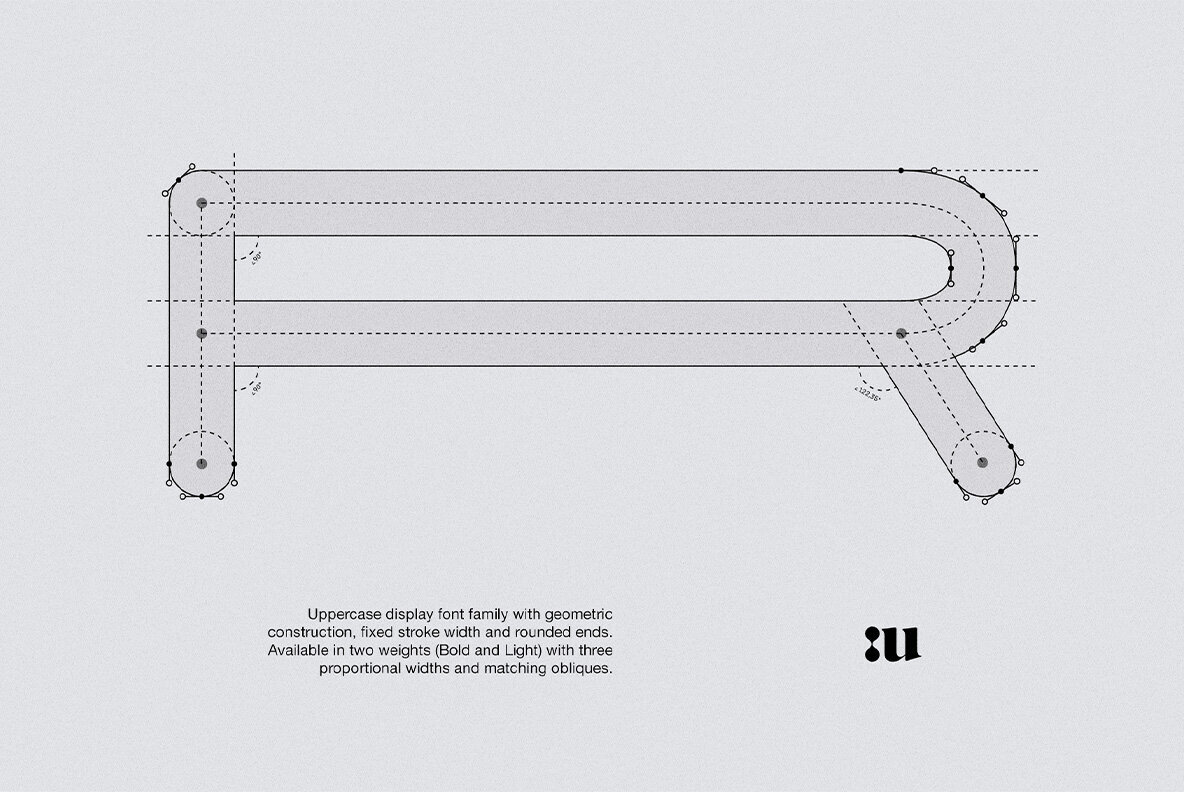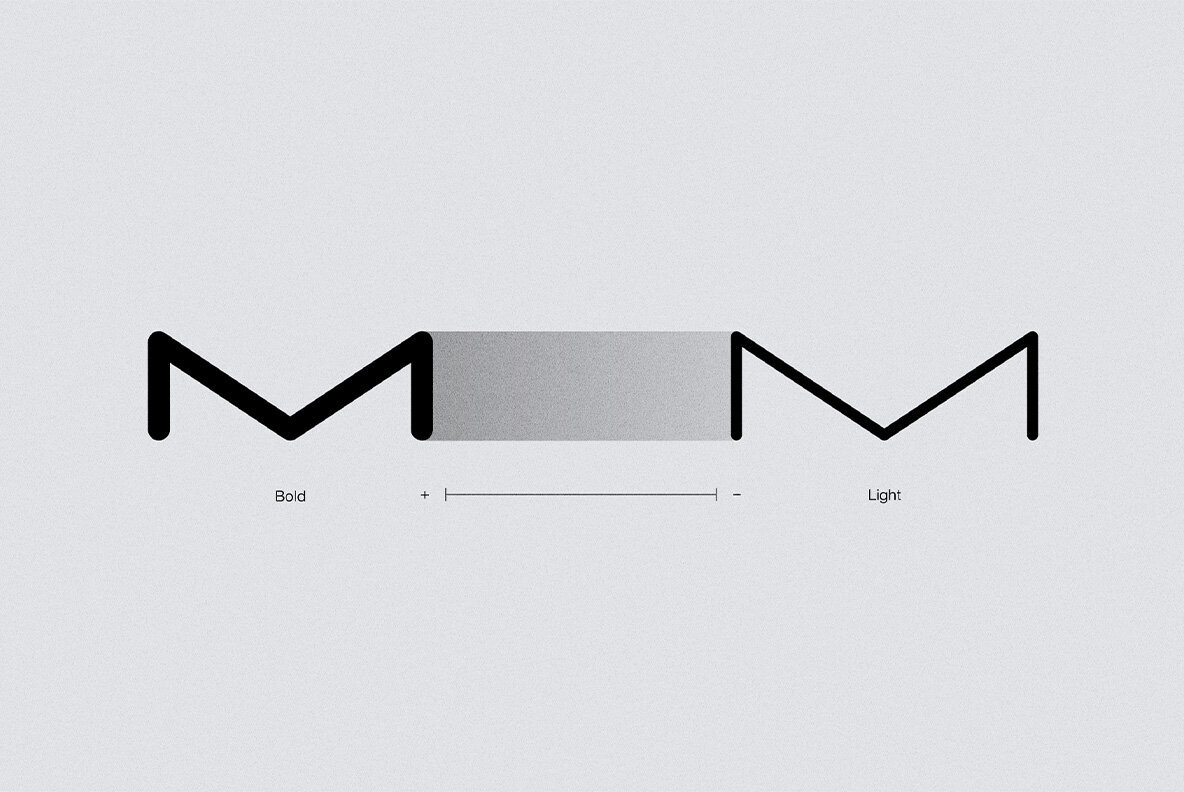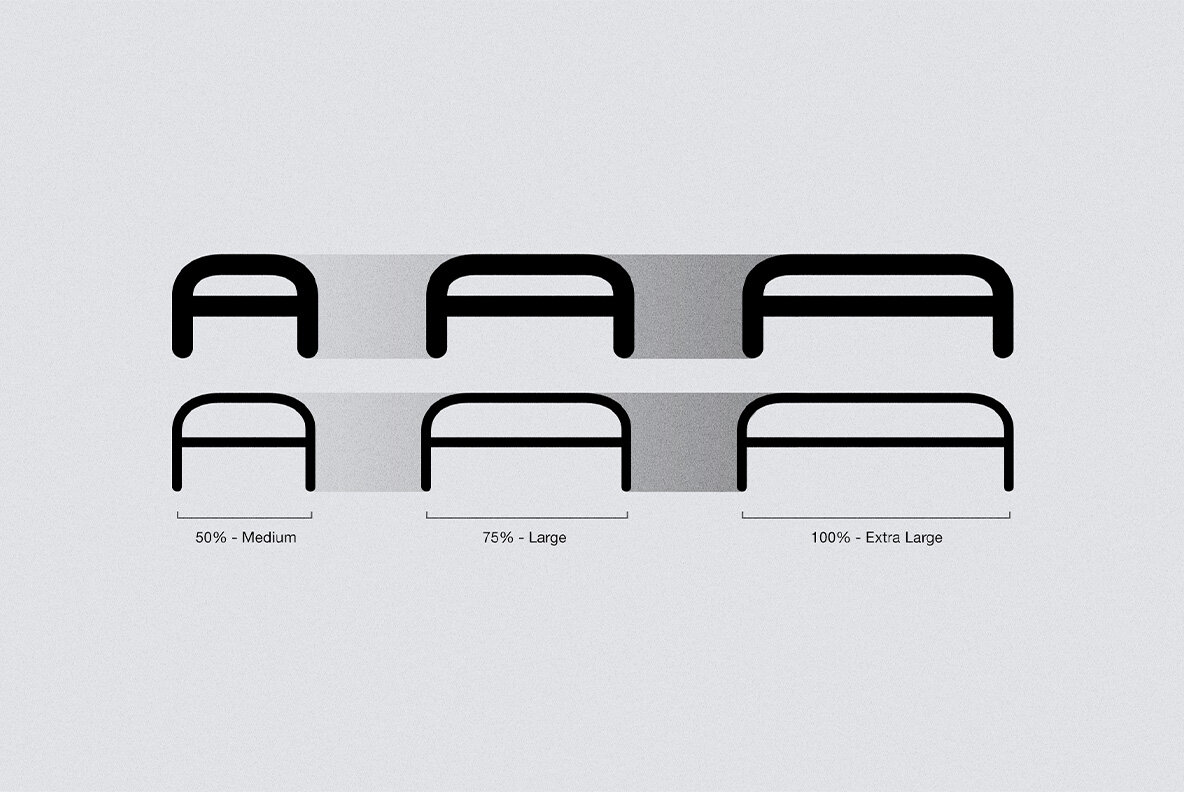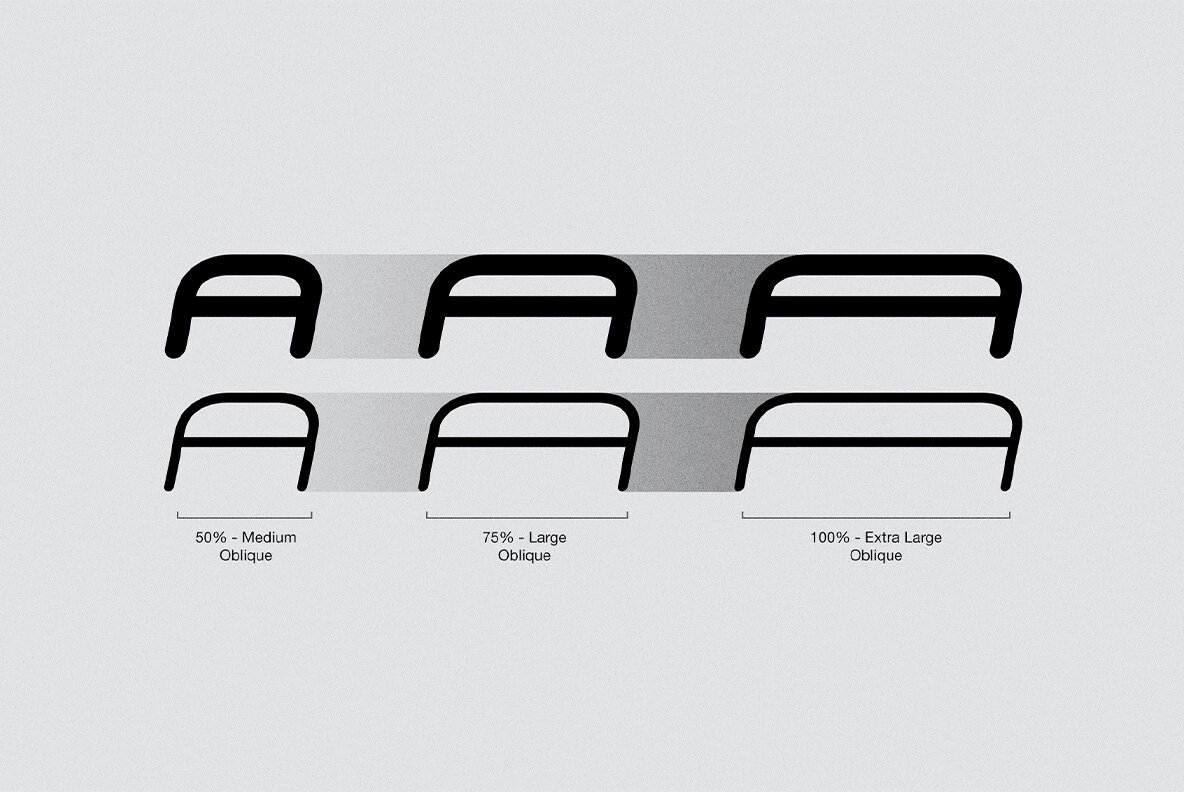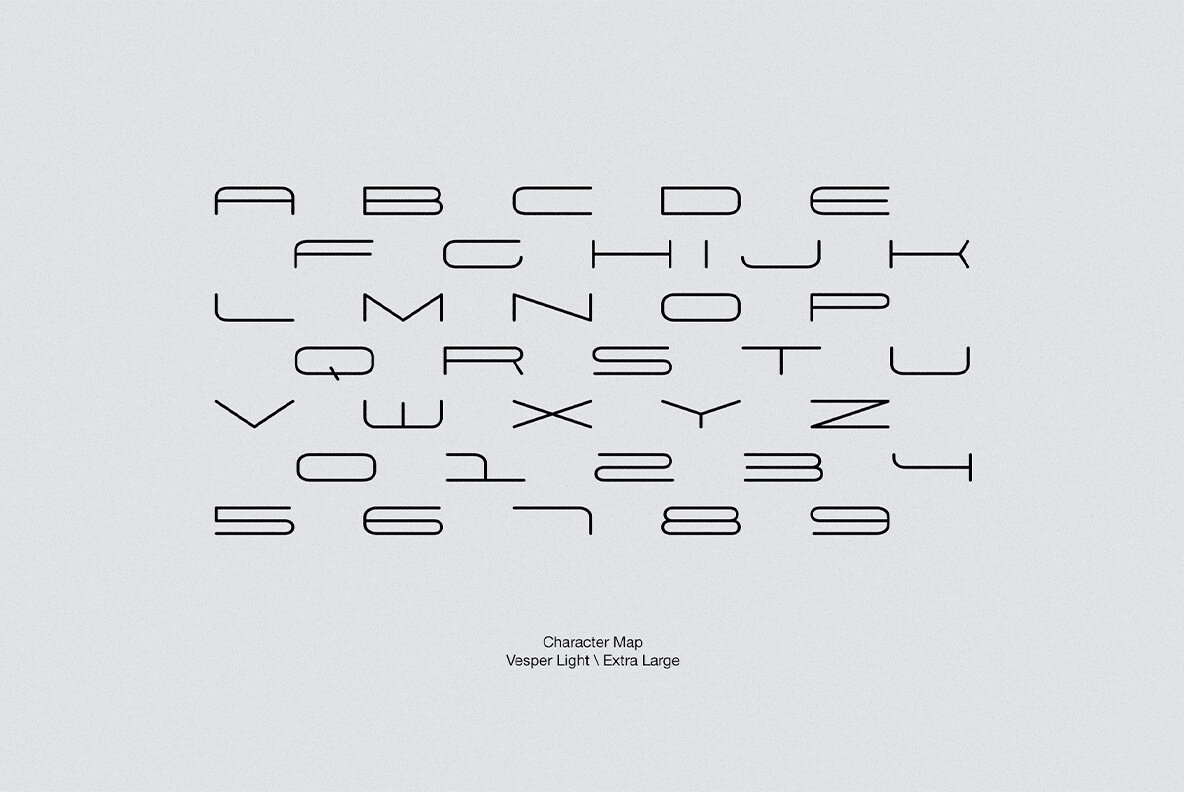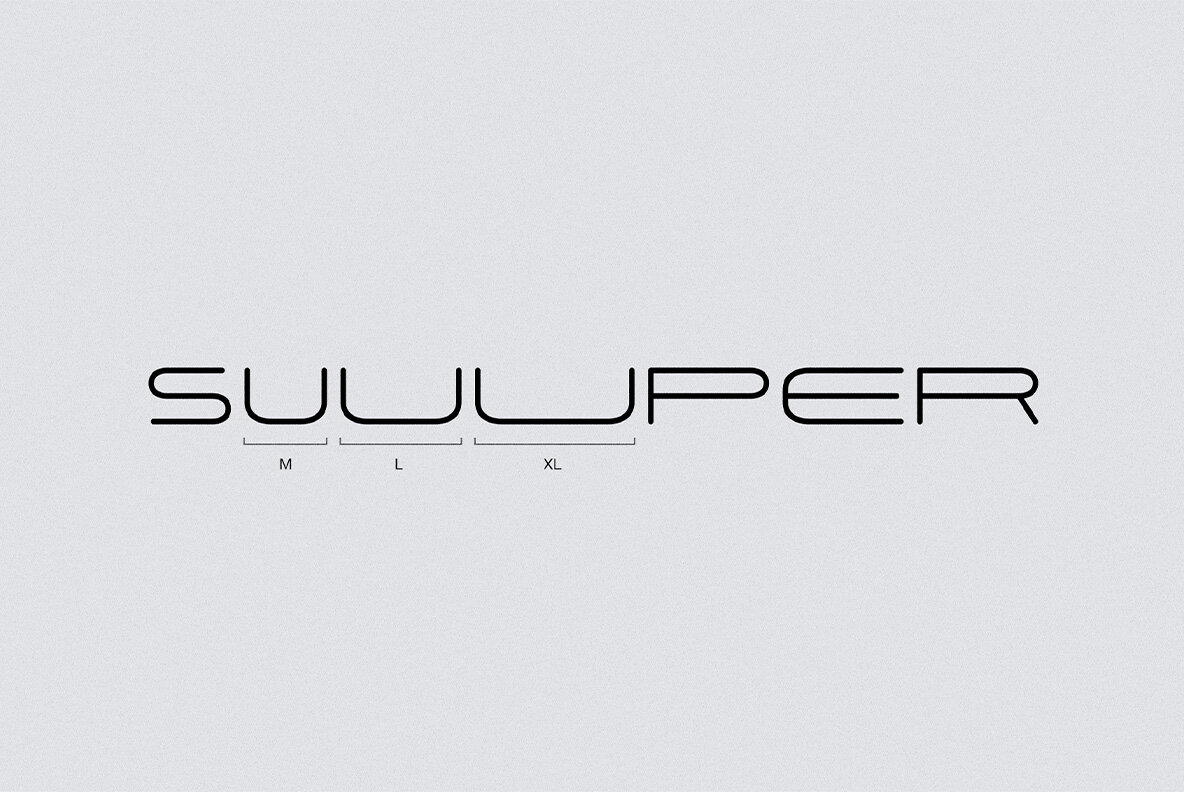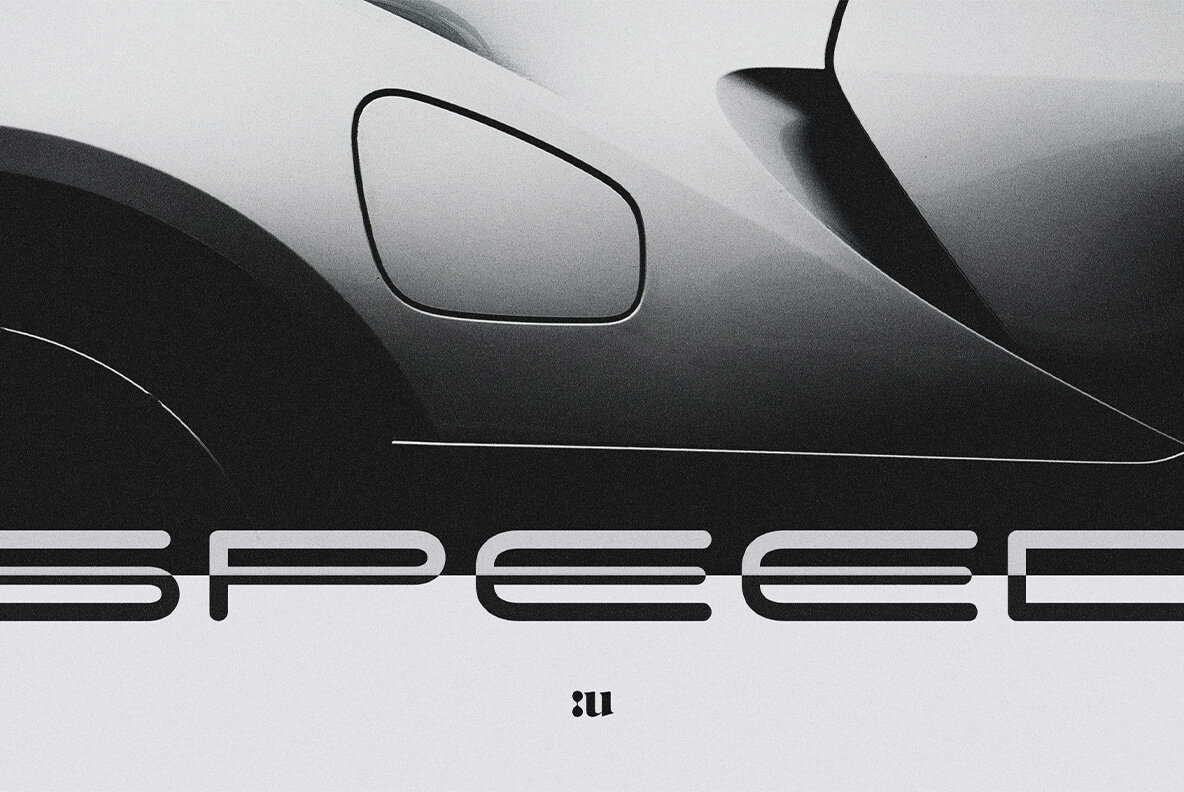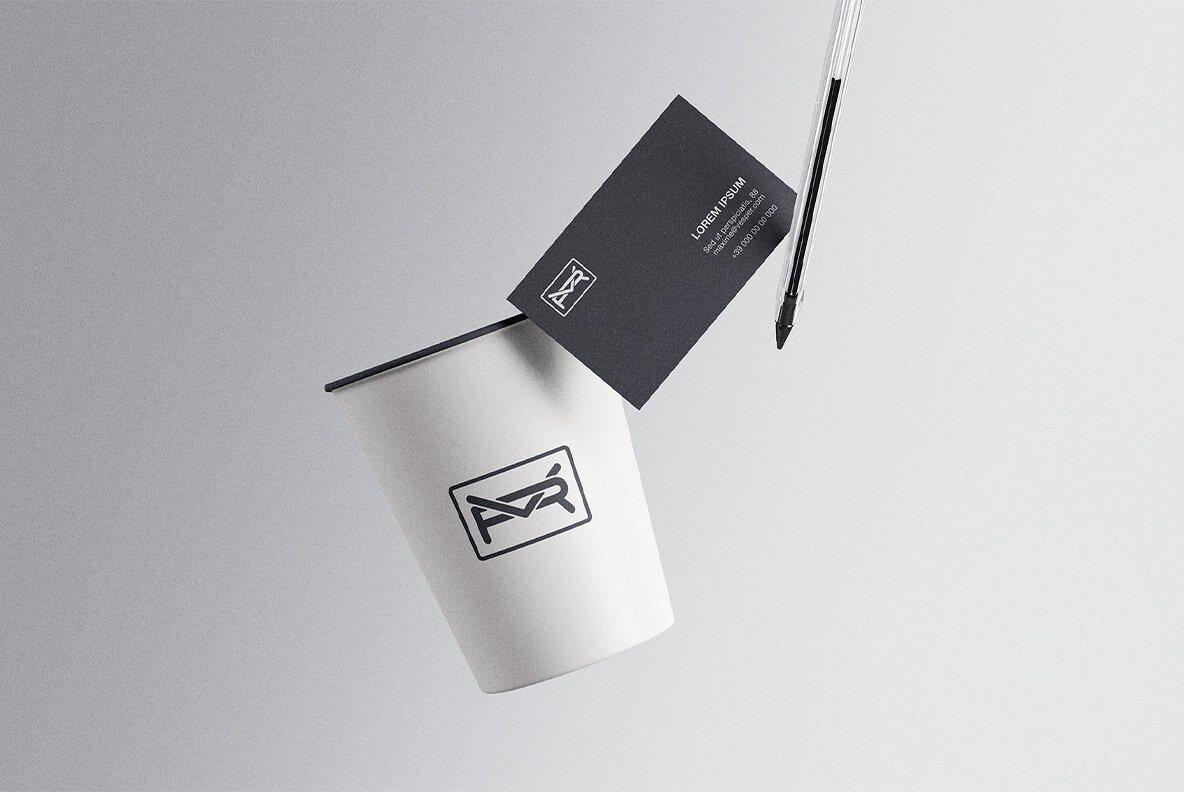
Vesper Font
Vesper is the new all caps geometric sans in 2 weights plus matching obliques. Each weight features three exclusive styles that can be also layered together with harmonious appearance. Inspired by unique stylistic elements from the 70s and the 80s, this font system has been designed with the highest attention to detail and its clean and stylized aesthetic is extremely versatile. In fact, simple forms make “Vesper” an iconic display typeface that can be used for any creative work. Featuring an extended characters set with more than 200 glyphs and covers several languages based on the Latin alphabet.